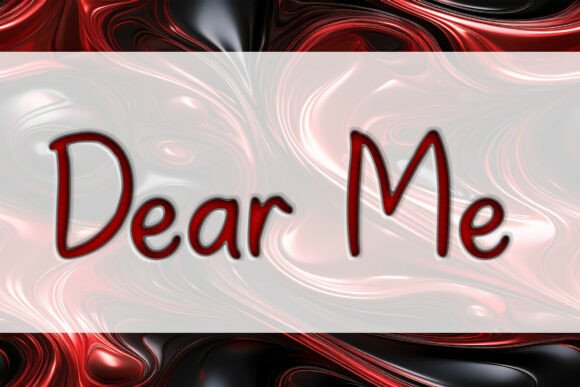
Unlocking Creative Potential: The Dear Me Font Revolution
Immerse yourself in the creative versatility of the Dear Me Font, a true gem in the world of typography. This remarkable font is not just a stylistic choice; it’s a game-changer for designers, crafters, and brands looking to make a statement. Perfectly suited for a myriad of applications, the Dear Me Font breathes life into everyday items and projects, turning them into unique expressions of art.
Elevate Your Designs with Dear Me Font
The Dear Me Font is more than just a collection of letters; it’s a tool that infuses a distinct personality into any project. Whether you’re looking to create eye-catching shirts and stickers, develop a branding strategy that stands out, or add a unique flair to magazines, this font is your go-to solution. Its elegant yet playful design ensures that your message is not just seen but felt.
Seamless Integration with SVG Files and Cricut Projects
One of the standout features of the Dear Me Font is its compatibility with SVG files and Cricut projects. This compatibility opens up endless possibilities for customization, allowing designers and crafters to push the boundaries of their creativity. With the Dear Me Font, you can effortlessly cut, craft, and create with precision and style.
Transforming Greeting Cards and Posters
The Dear Me Font has a special way of elevating greeting cards and posters with its distinctive charm. What might seem like a simple card or poster can be transformed into a heartfelt gift or a striking piece of art. This font adds a touch of sophistication and whimsy, making any occasion special.
A Game-Changer for Social Media Visuals
In the digital age, social media visuals play a crucial role in capturing attention and conveying messages effectively. The Dear Me Font proves to be a game-changer in this arena, providing a fresh and distinctive look that can set your content apart from the crowd. Whether you’re a business looking to boost your brand or an individual aiming to make your mark, this font can significantly enhance your visual strategy.
The Versatility Advantage
What makes the Dear Me Font truly special is its adaptability across various platforms and projects. It’s not limited to professional design; it’s equally beneficial for hobbyists and DIY enthusiasts. From crafting personalized gifts to developing comprehensive brand identities, the Dear Me Font is a versatile tool that can adapt to your creative needs.
- Choosing Your Project: Decide on the project you want to work on. Whether it’s a branding project, a Cricut craft, or a social media visual, the Dear Me Font can be adapted.
- Experiment with Styles: Don’t hesitate to experiment with different styles and sizes of the Dear Me Font. Its versatility means it can be both subtle and striking, depending on your needs.
The Dear Me Font is more than just a typographical element; it’s a catalyst for creativity. With its wide range of applications, from shirts and stickers to social media visuals, and its seamless integration with SVG files and Cricut projects, it’s a must-have for anyone looking to elevate their design game. Get ready to witness a tectonic shift in your designs with the Dear Me Font, cherished for its adaptability across various platforms and projects!